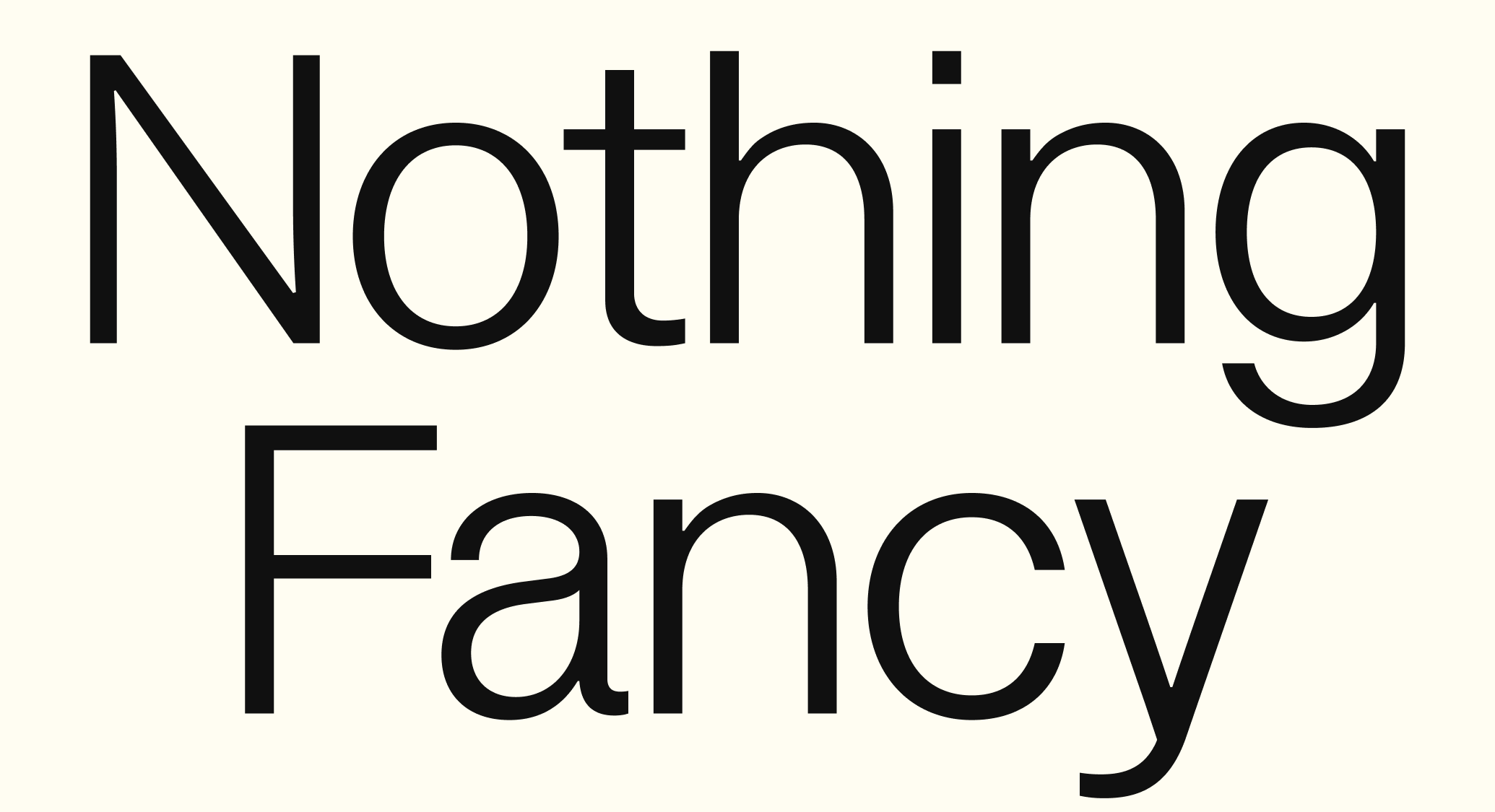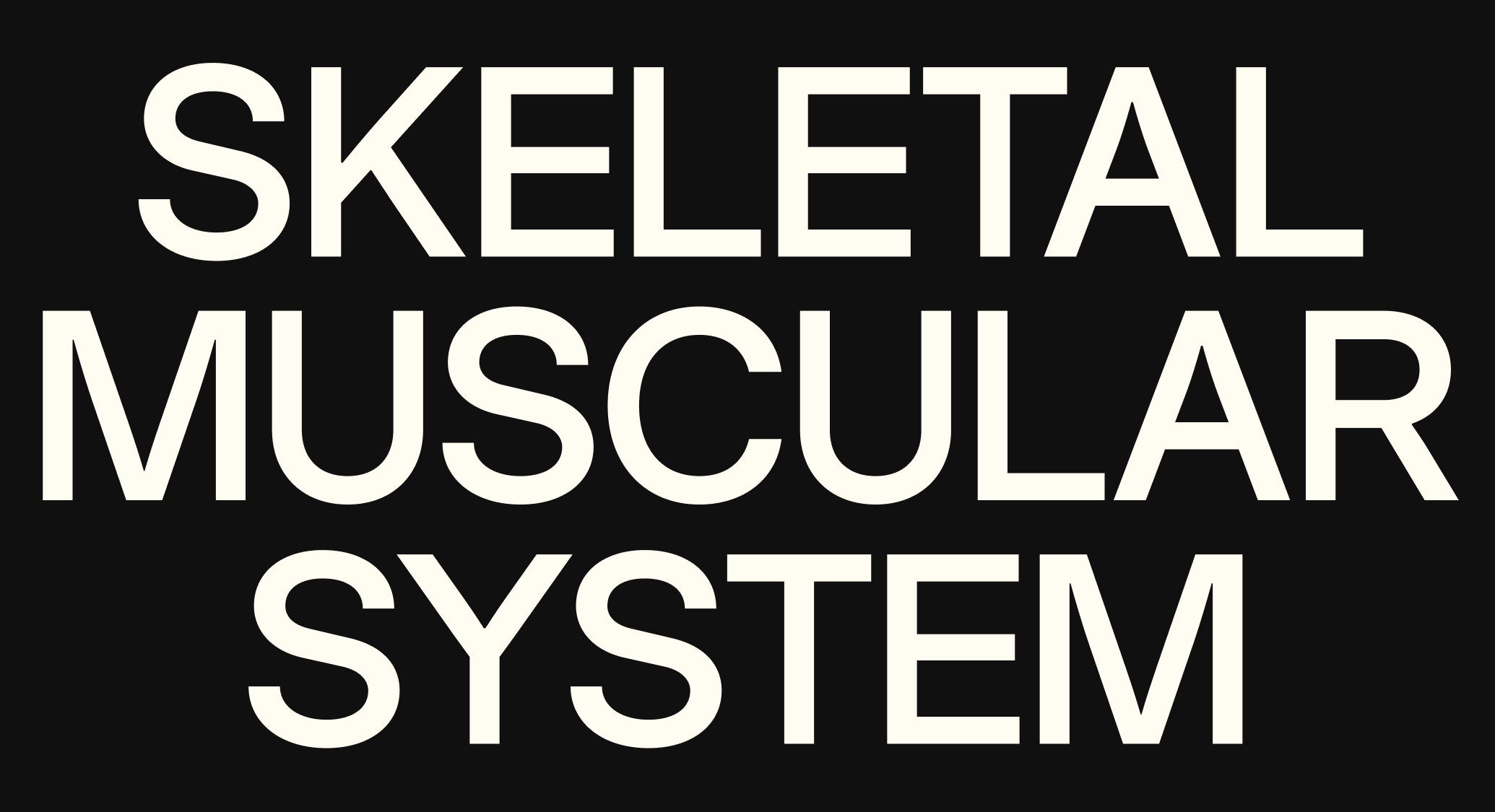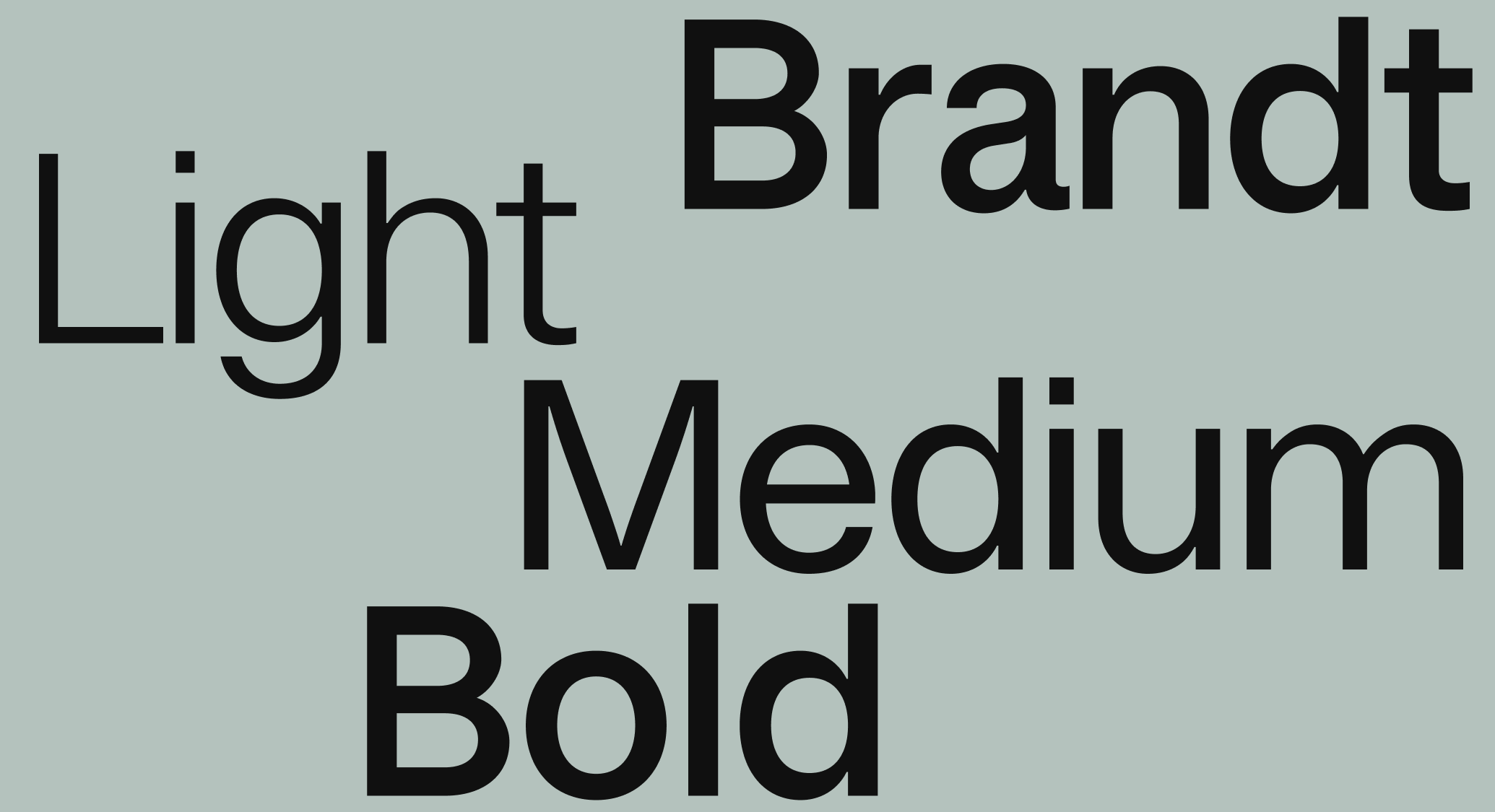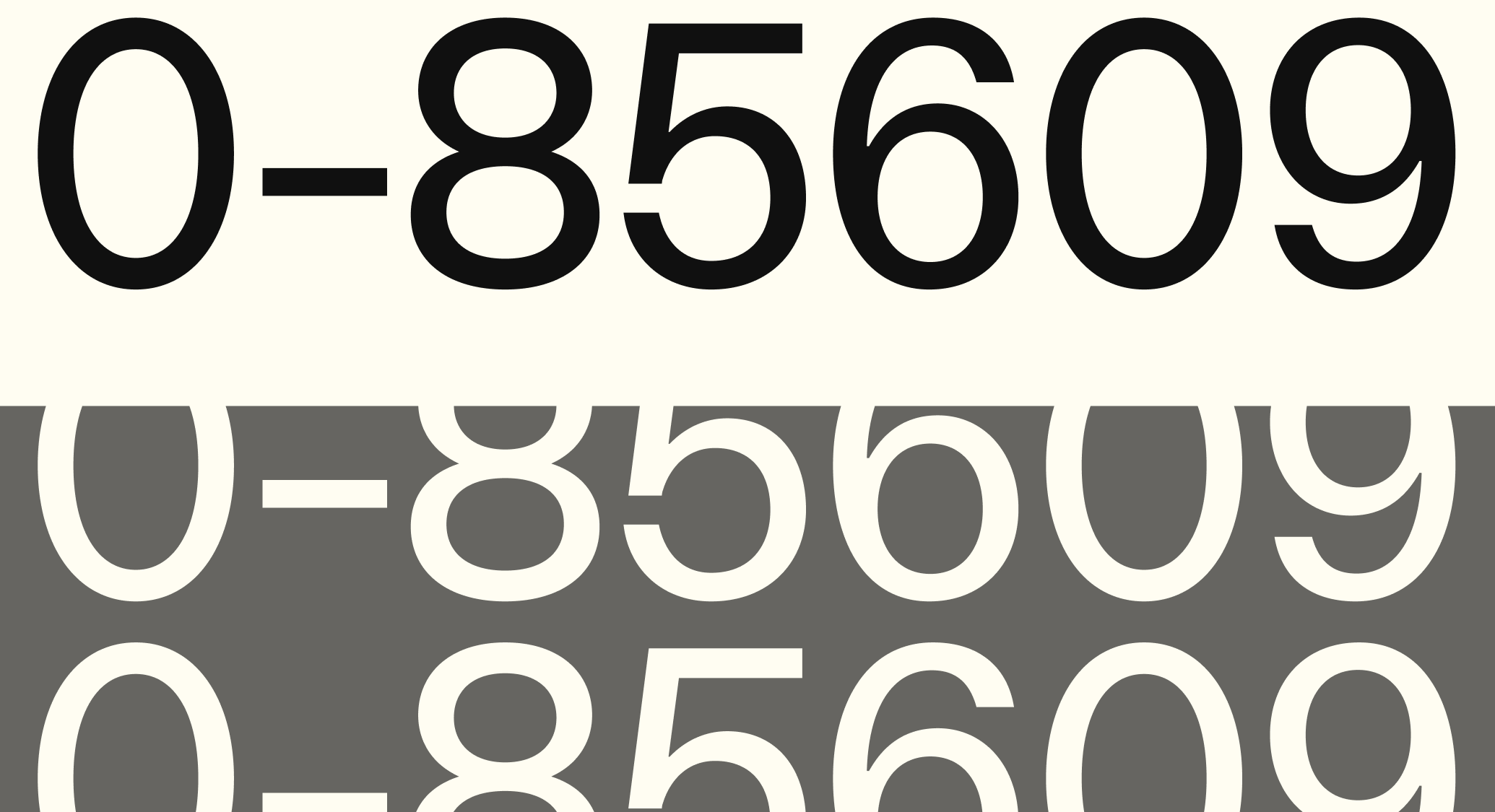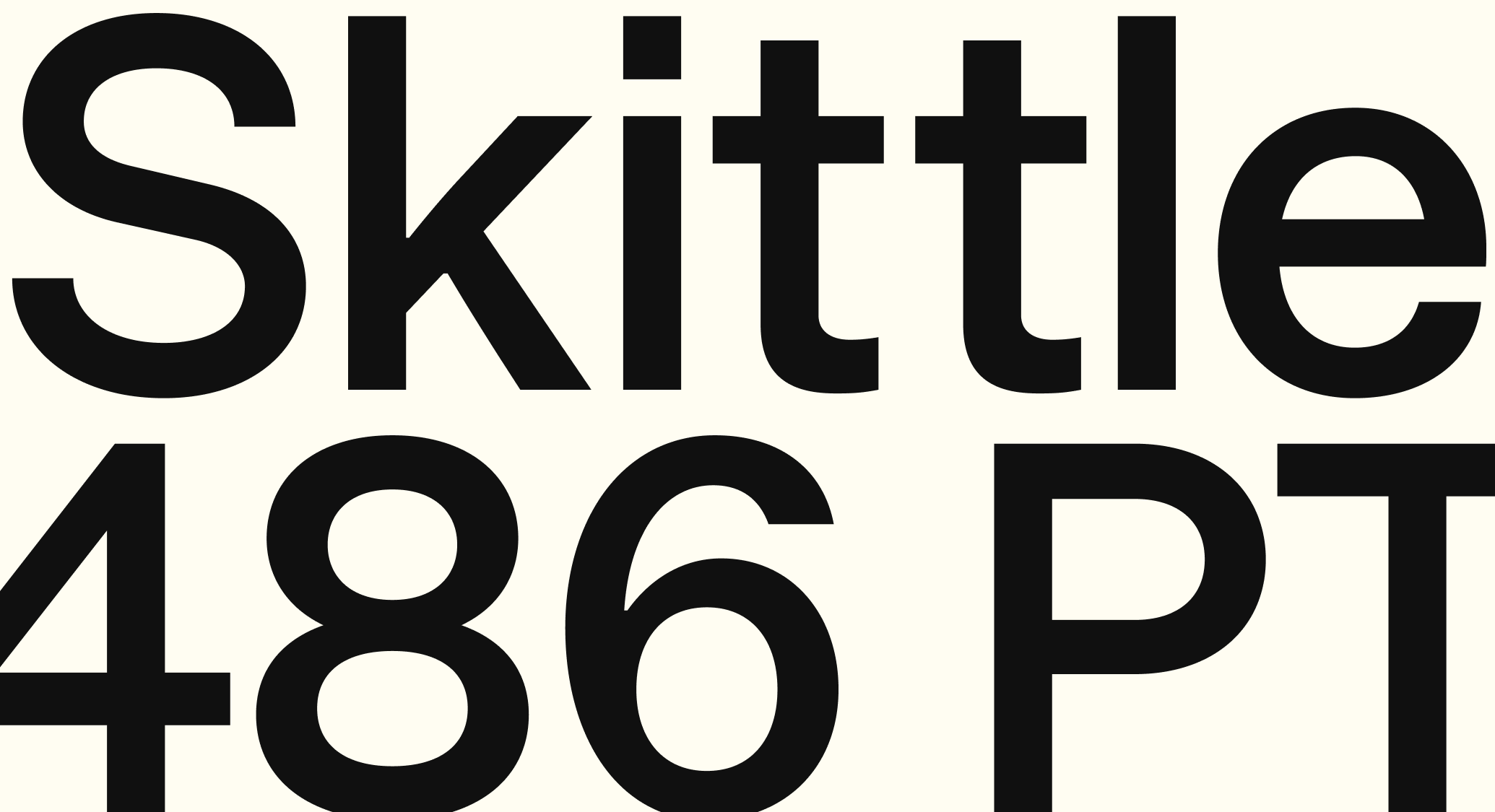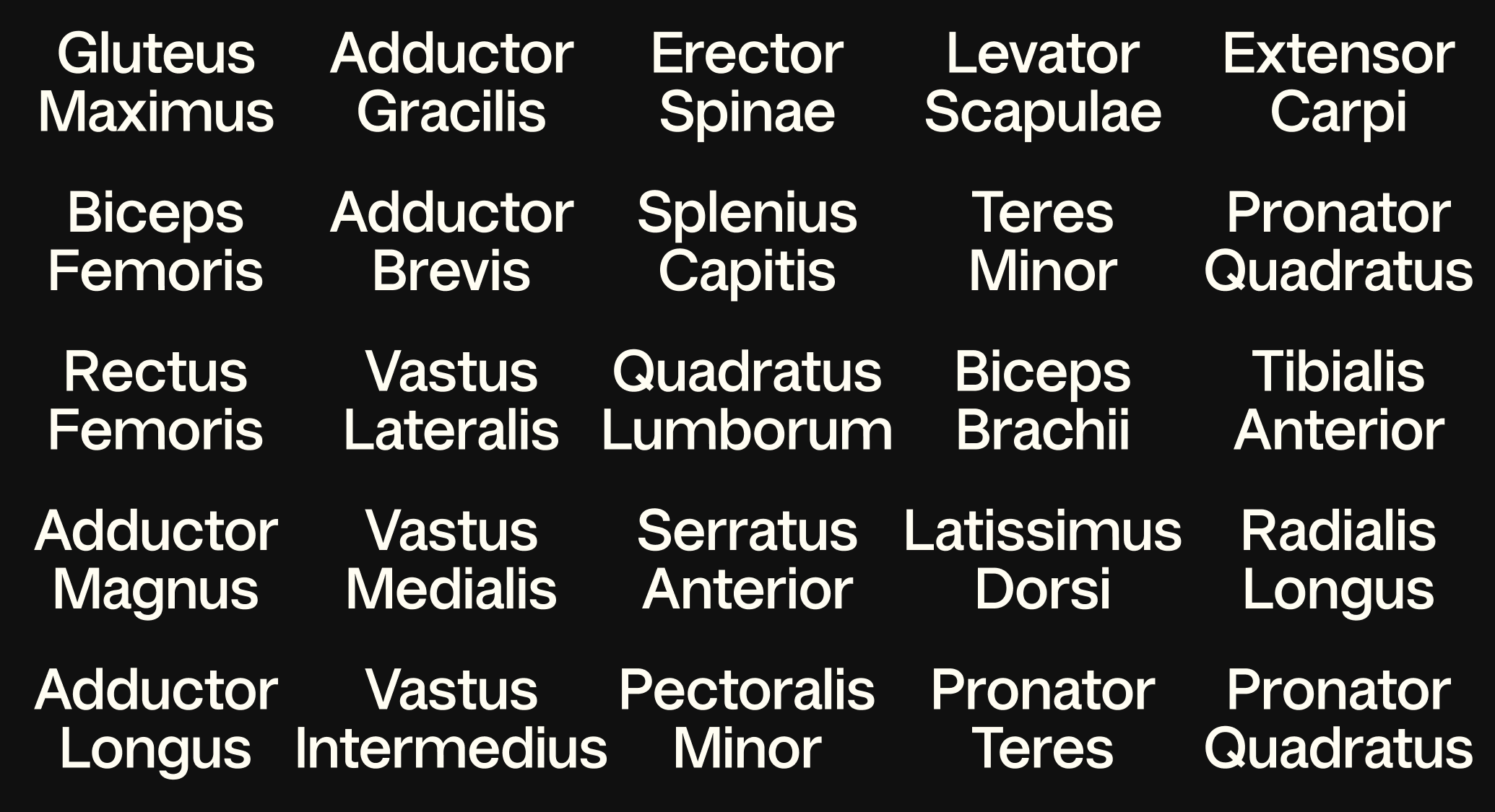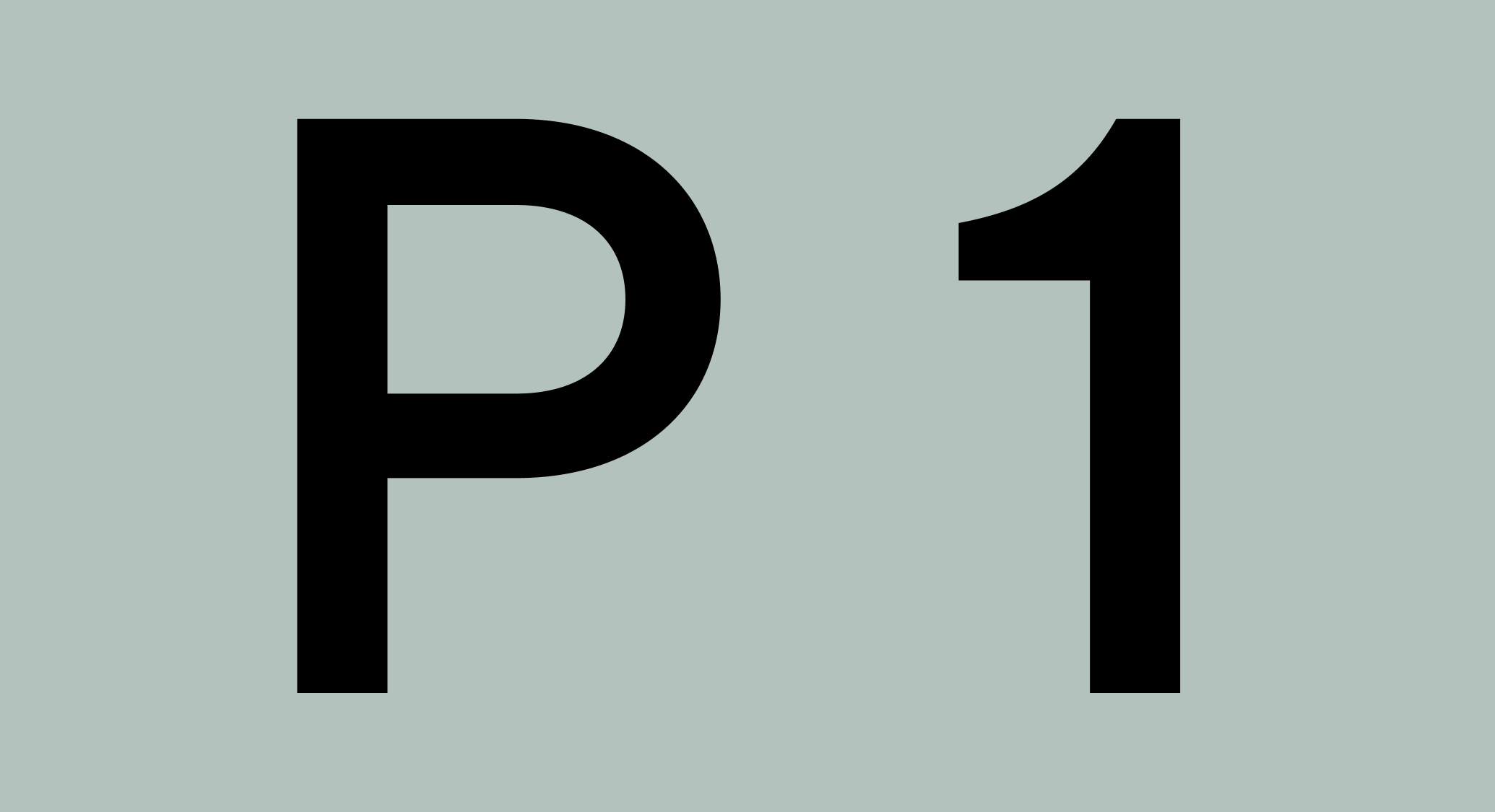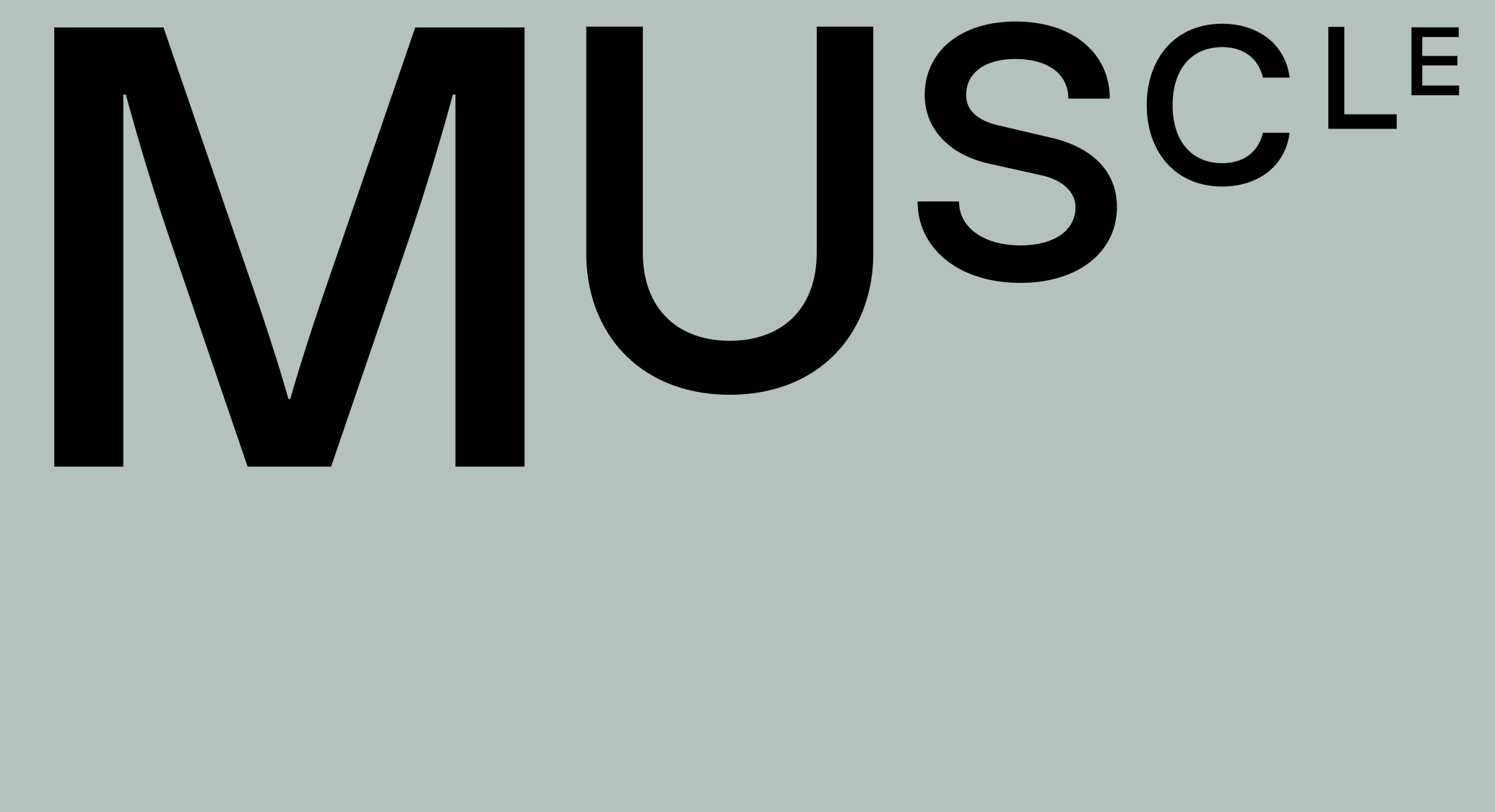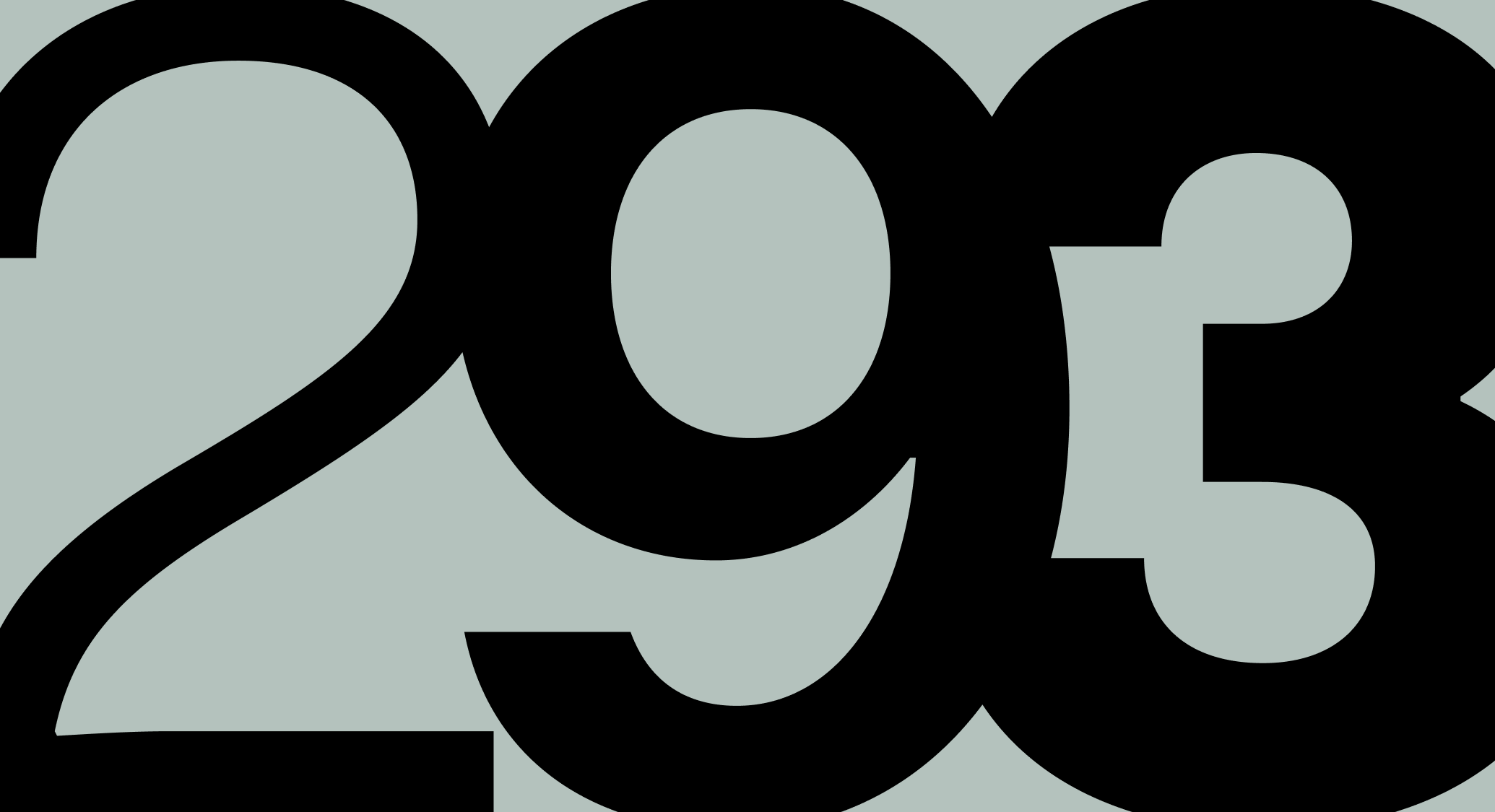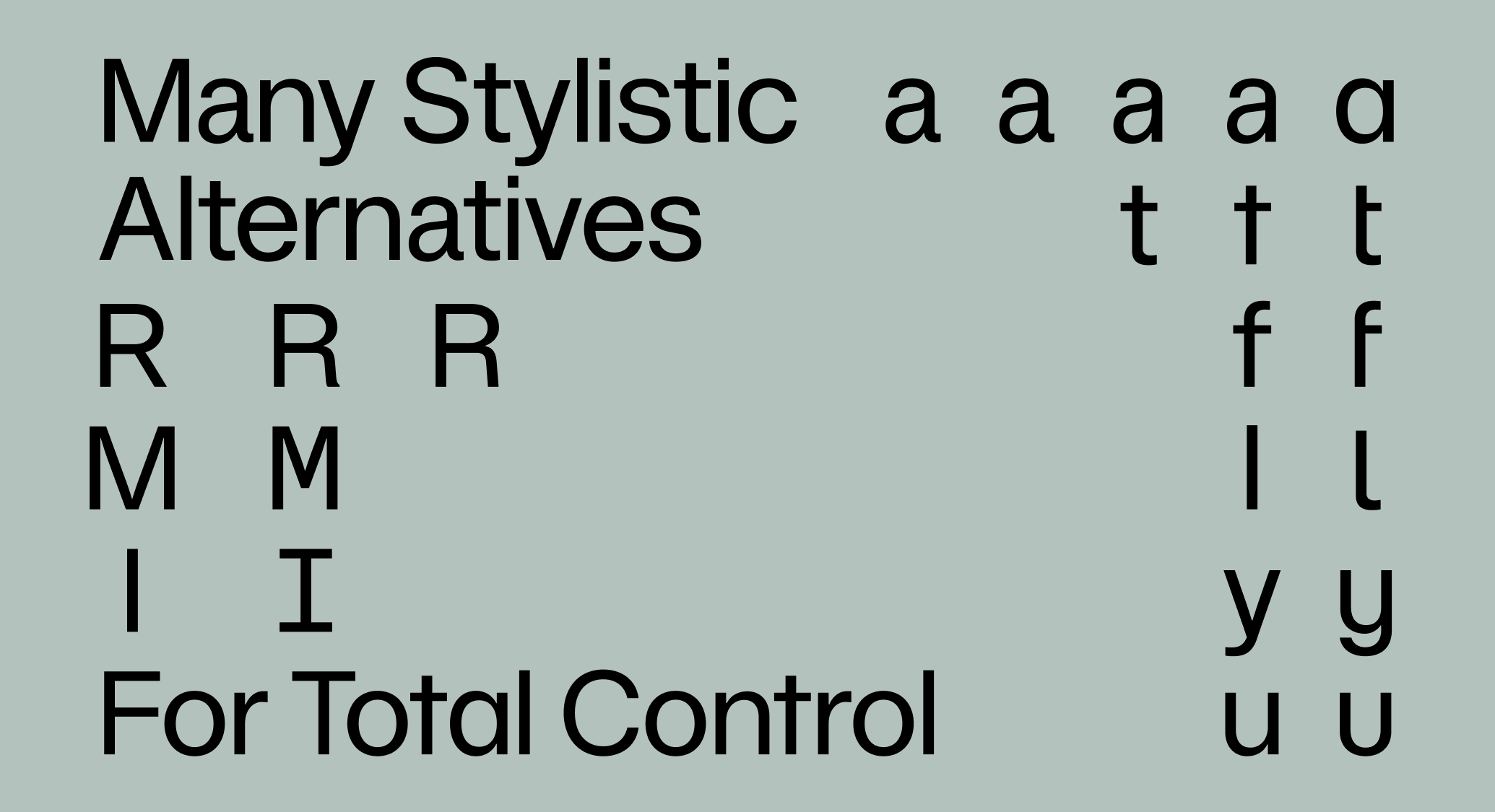
AF Brandt
AF Brandt is a sinewy sans-serif family stripped of any trace of excess. It offers users total control over the volume of delivery, from recessive to concussive, depending on the desired effect. Wield Brandt as a muscle that assists both with posture and power.